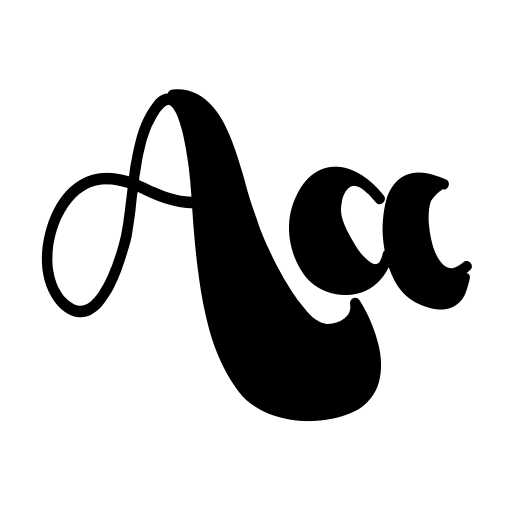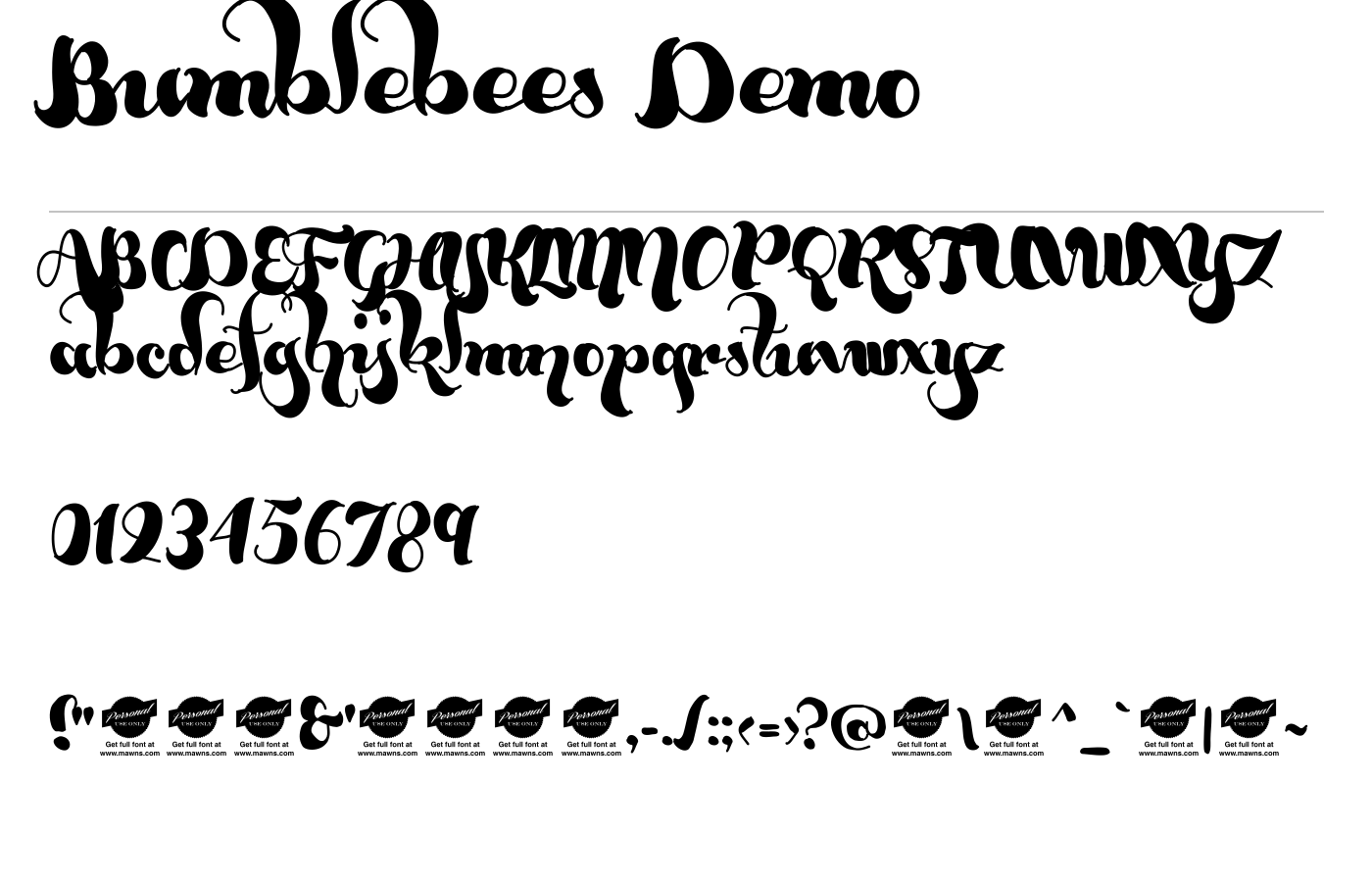
Bumblebees Demo is a bold, playful script font with a strong calligraphic flair, characterized by thick, curvy strokes and whimsical swashes that give it a lively and artistic feel. Its decorative letterforms and high contrast create a distinctive, expressive style perfect for eye-catching headlines, creative branding, and fun, informal designs. This font works particularly well in projects seeking a unique, handmade touch with a joyful, creative vibe.
Bumblebees Demo Font
About Bumblebees Demo Font